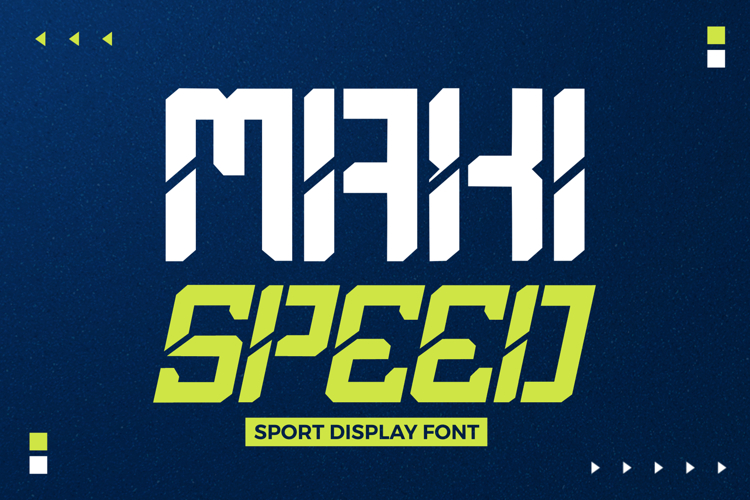
Maxispeed | The Ultimate Sport Display Font
🔥 Maxispeed – The Ultimate Sport Display Font 🏆
Fuel your designs with speed, power, and adrenaline using Maxispeed, a bold sport display font built for high-impact visuals! With its sharp angles, dynamic strokes, and sleek modern design, Maxispeed is perfect for racing, esports, athletic branding, and high-energy promotions.
Whether you're crafting sports team logos, tournament posters, speed-inspired graphics, or bold merchandise, Maxispeed delivers a fast, fierce, and competitive edge that makes your design stand out.
💥 Why Choose Maxispeed?
✅ Bold & Fast-Paced – Designed to convey motion, strength, and speed.
✅ Sharp & Modern – Sleek letterforms perfect for sports branding and esports.
✅ High-Impact Readability – Clear, strong characters that grab attention.
✅ Versatile & Dynamic – Ideal for jerseys, posters, team branding, and racing themes.
✅ Multilingual Support – Covers multiple languages for a global reach.
✅ Complete Character Set – Includes uppercase, lowercase, numbers, punctuation, and special symbols.
🏁 Dominate the Competition with Maxispeed! 🏁
💡 Perfect for:
🏆 Sports Team Logos & Branding
🏁 Racing & Motorsports Graphics
🎮 Esports & Gaming Titles
📢 Event Posters & Promo Materials
🖌 Bold Merchandise & Custom Prints